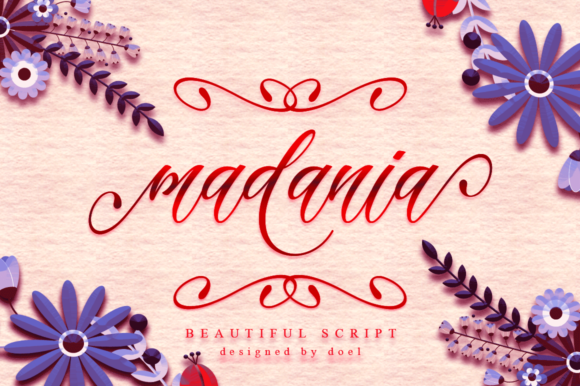
Madania Script Font
Introduce the Madania Script Font, an Exquisite Symphony of Elegance and Modernity:
Welcome to the realm of typography, where the Madania Script Font stands as a testament to the transformative power of letters. Designed by Fajry's Type, this extraordinary font exudes a modern and elegant aura that's guaranteed to elevate your creative projects to new heights.
Indulge in the beauty of Madania Script's enchanting curves and delicate strokes. Each character carries a touch of sophistication, lending an air of grace to your designs. The font's versatility shines through its adaptability to a wide range of projects, making it an indispensable tool for any designer's arsenal.
Whether you're crafting eye-catching posters, designing elegant labels, personalizing letterheads, or creating unique badges, Madania Script promises to add a touch of distinction to every endeavor. Its remarkable legibility ensures that your message is conveyed with clarity and impact, while its aesthetic appeal captivates audiences with its timeless charm.
Embrace the Essence of Madania Script:
- Immerse yourself in the enchanting world of calligraphy, where Madania Script's graceful strokes weave a tapestry of beauty.
- Elevate your designs with a font that exudes timeless elegance and sophistication, leaving a lasting impression on your audience.
- Experience the boundless versatility of Madania Script, seamlessly adapting to a myriad of creative projects, from personal branding to marketing campaigns.
- Delight in the ease of use that Madania Script offers, ensuring a smooth and seamless integration into your design workflow.
- Gain access to a comprehensive set of characters, including uppercase and lowercase letters, numerals, punctuation marks, and a range of special symbols, providing you with endless creative possibilities.
Unlock the Power of Madania Script: